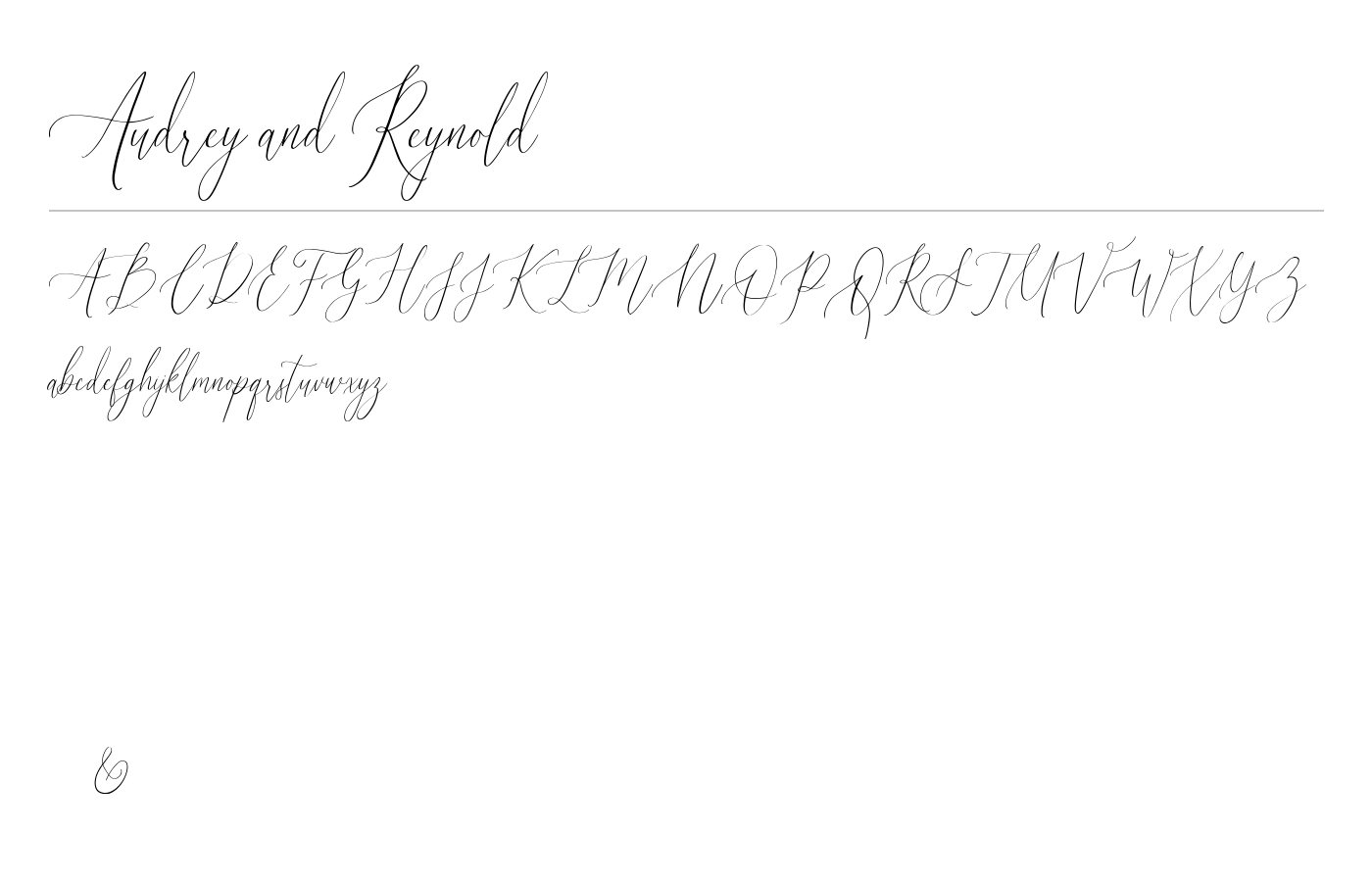
AudreyDemo is a delicate, handwritten script font with elegant, flowing strokes and a light weight that evokes a sense of sophistication and charm. Its tall, slender letterforms and graceful curves make it ideal for invitations, branding, and editorial projects where a personal, refined touch is desired. This font works best in large sizes for headlines or accents, adding a stylish, artistic flair to modern and romantic designs.
AudreyDemo Font
About AudreyDemo Font
| Font family | AudreyDemo Font |
| Designer | AwanStudio |